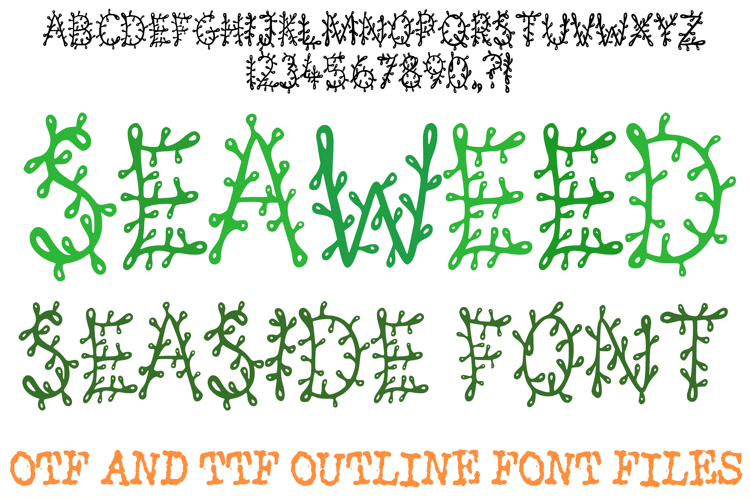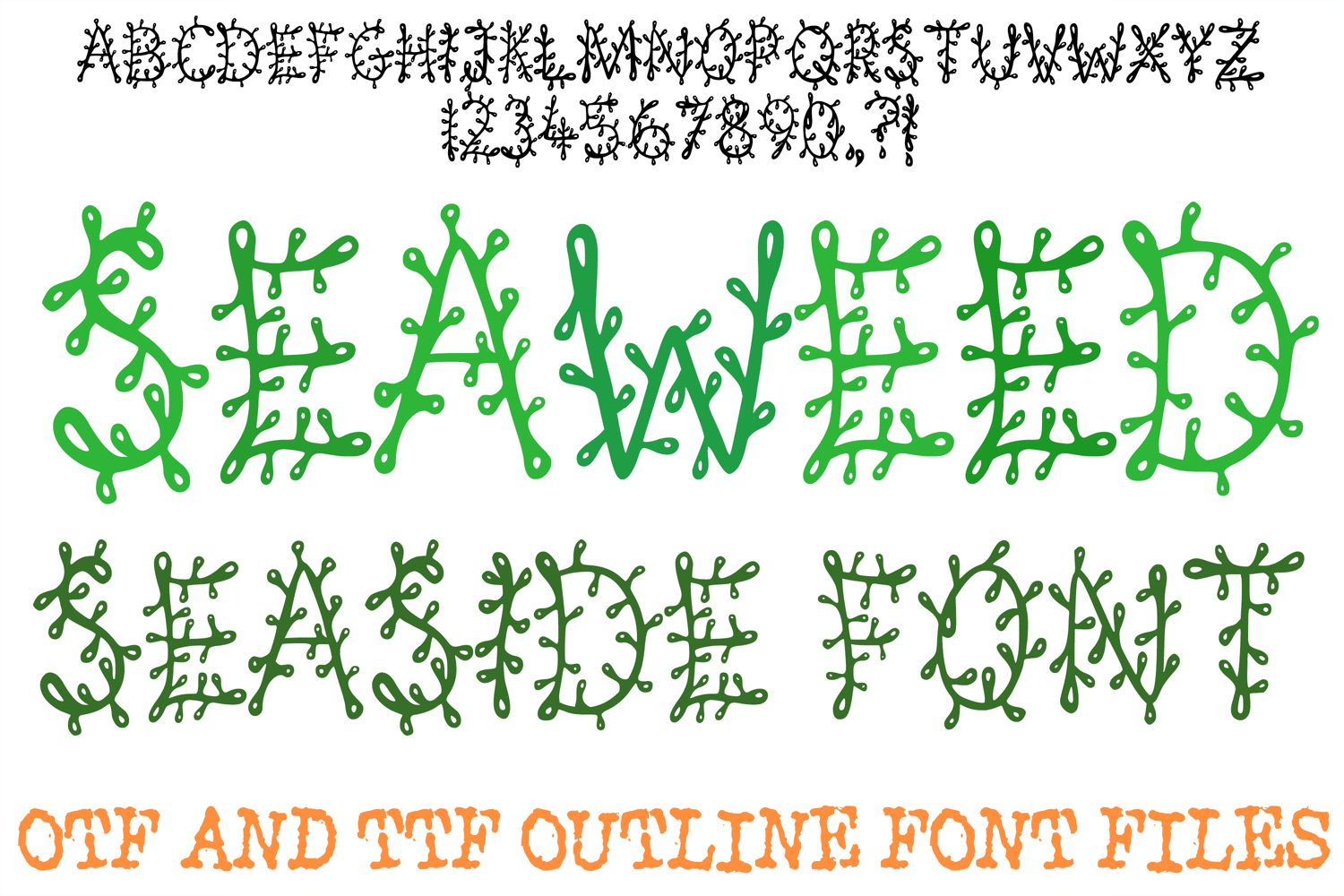
Dive into a whimsical, oceanic aesthetic with the Seaweed Font. This incredibly unique display typeface features hand-drawn outlines that sprout playful, rounded tendrils and bubbling knobs, mimicking the organic flow of underwater kelp, marine plant life, and coastal coral reefs. With its fluid movement and distinctive nautical silhouette, each uppercase letter, number, and punctuation mark brings an eye-catching, beachy energy to text layouts.
Delivered as an installable typeface, this intricate outline structure provides maximum creative versatility. It is an exceptional resource for a designer who wants to add coastal color gradients, watercolor textures, or deep-sea shadows beneath the line art. The crisp, clean linework scales flawlessly across all creative software, ensuring sharp results for digital graphics and tropical print projects alike.